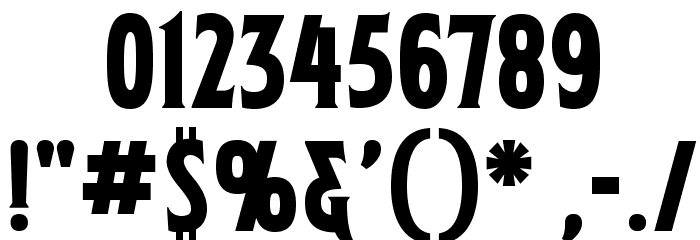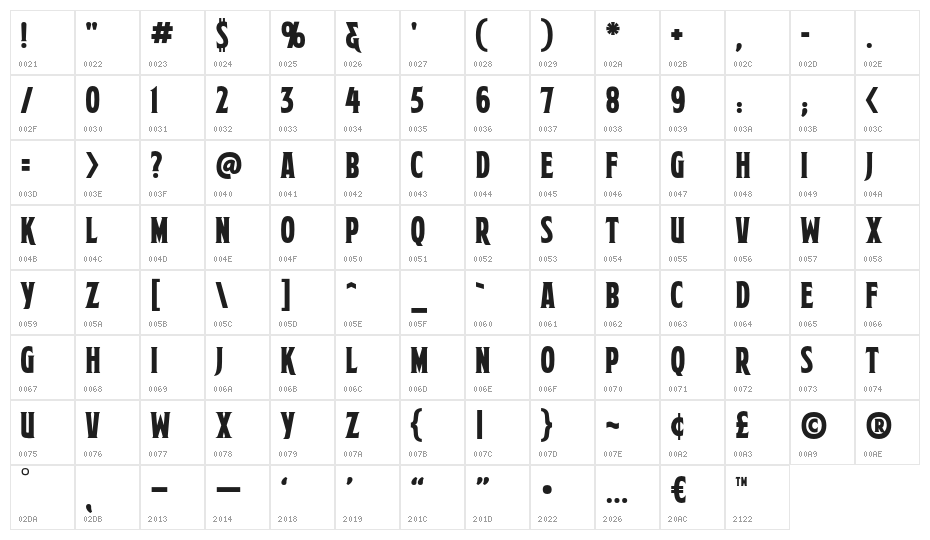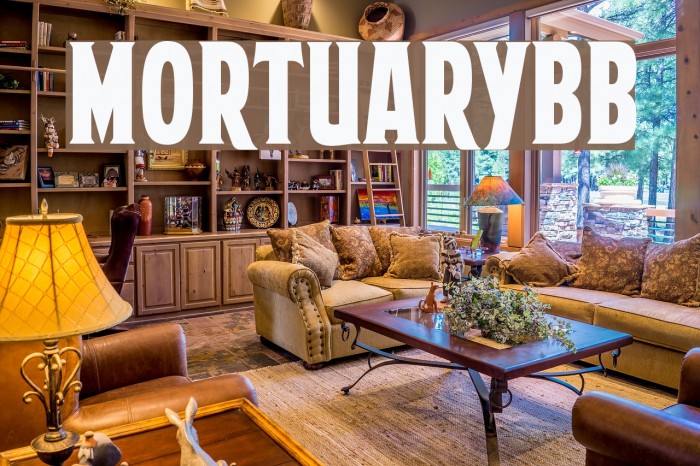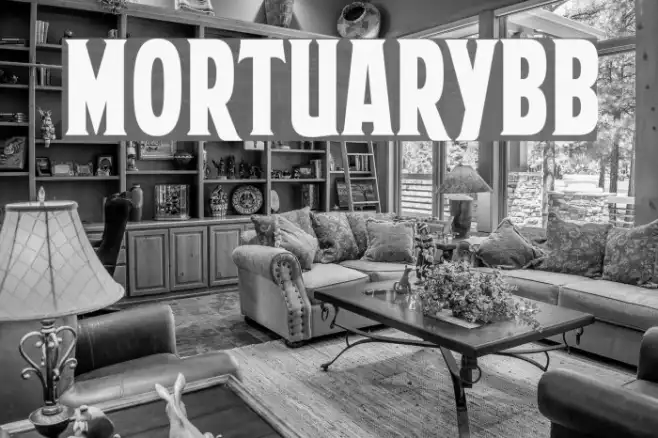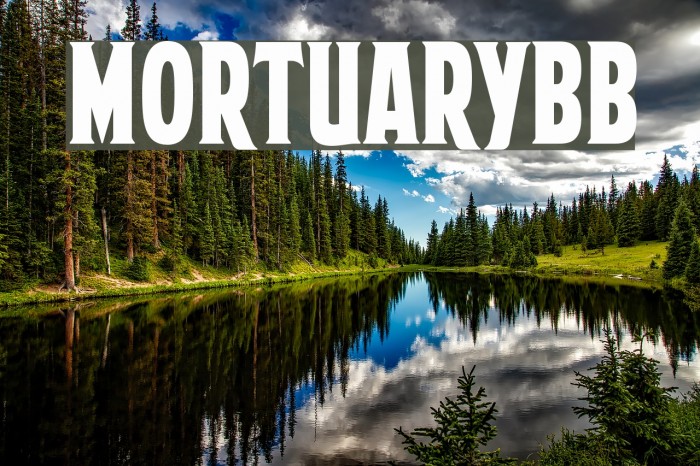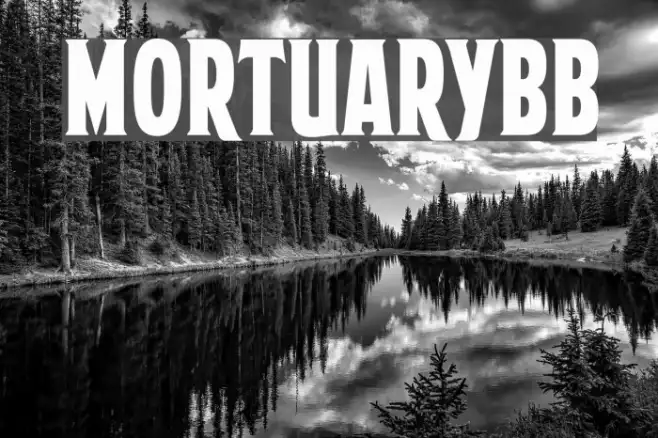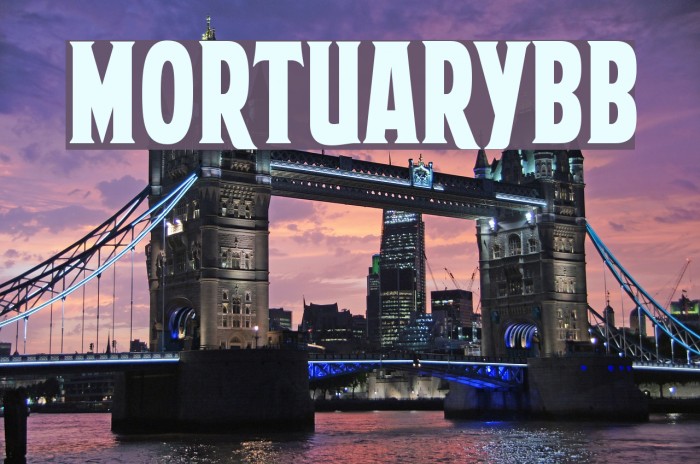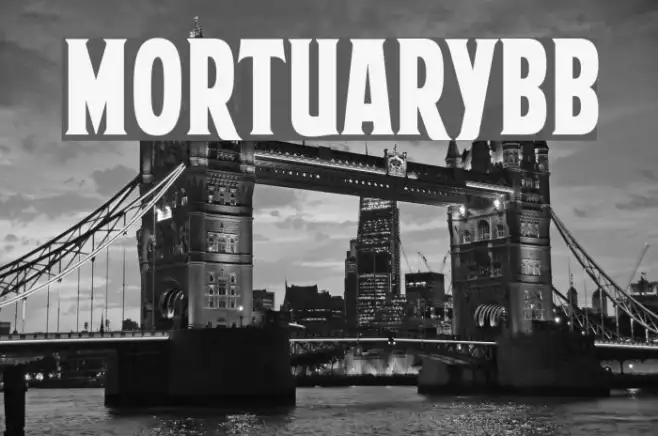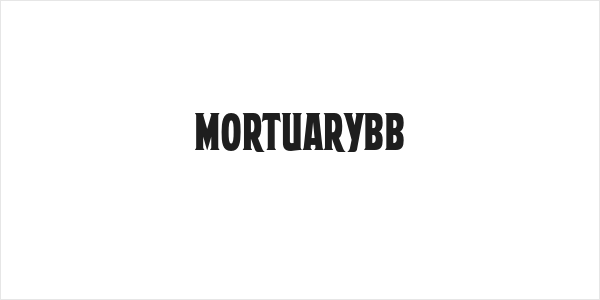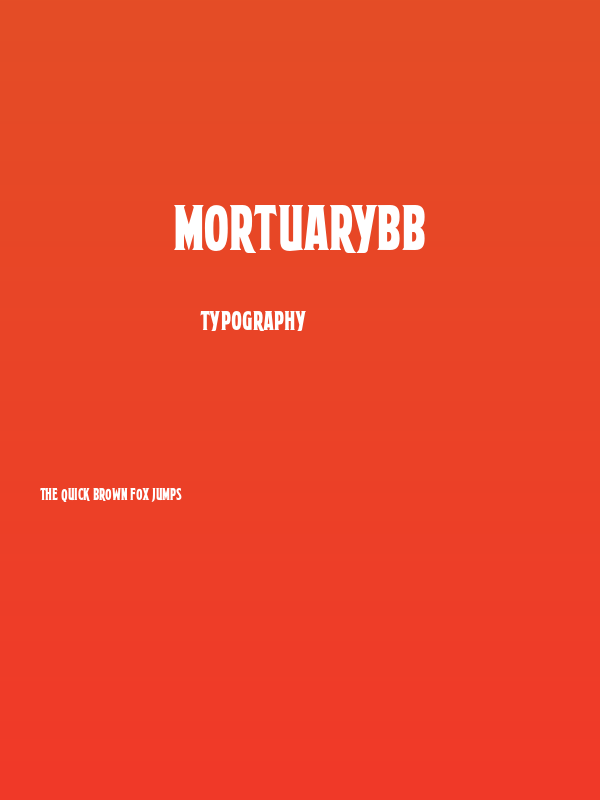
MortuaryBB Font
MortuaryBB Description
This font features bold, dramatic strokes with a distinct vintage flair. The characters are tall and slightly condensed, giving them a commanding presence. The serifs are pronounced and angular, adding to the font's strong and assertive appearance. The uppercase and lowercase letters maintain a consistent style, with a slight curvature that softens the overall look. The numbers and special characters are equally bold, ensuring readability and impact. This font is ideal for projects that require a touch of nostalgia and boldness.
| Proposed Projects | Ideal for posters, headlines, branding, and any design needing a vintage or bold aesthetic. |